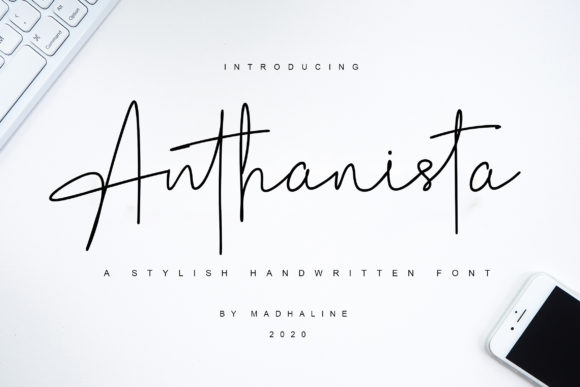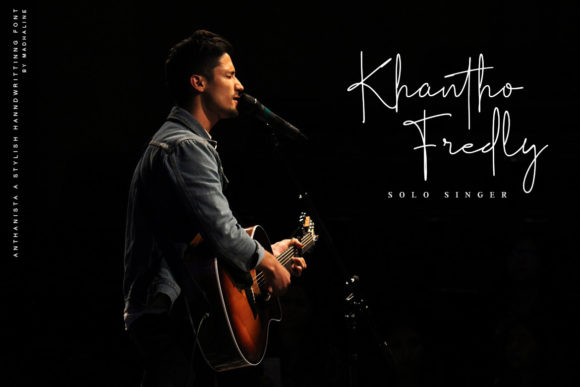
About Anthanista Font
Anthanista is a thin lettered and graceful script font. It would be perfect for photography, watermark, social media posts, advertisements, logos & branding, invitation, product designs, label, stationery, wedding designs, product packaging, special events or anything that needs a handwriting taste.